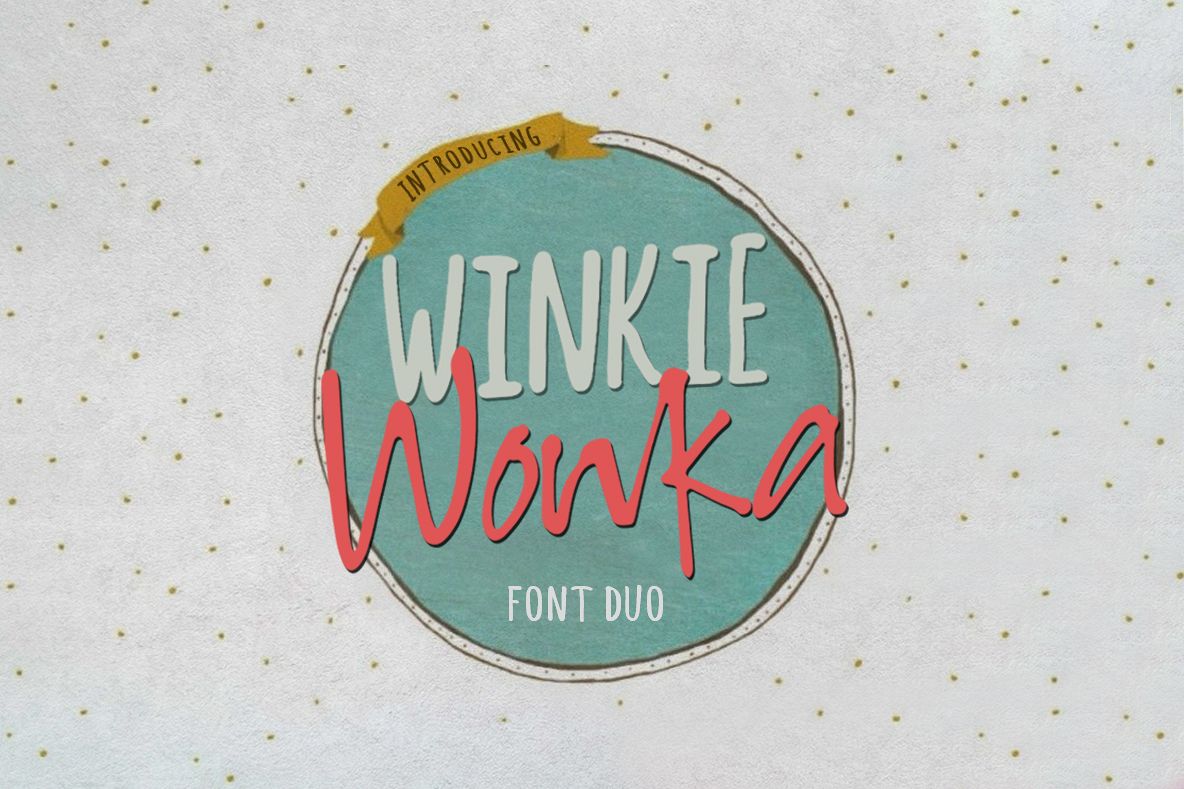
Winkie Wonka Font Duo
Introducing:
Winkie Wonka handwritten font duo with a personal charm. With quick dry strokes and a signature style, Winkie Wonka is perfect for branding projects, homeware designs, product packaging - or simply as a stylish text overlay to any background image.
1. Winkie Regular • A handwritten font containing upper & lowercase characters, numerals and a large range of punctuation
2. Winkie Italic • A handwritten font containing upper & lowercase characters, numerals and a large range of punctuation
3. Wonka Regular • A handwritten script font containing upper & lowercase characters, numerals and a large range of punctuation
4. Wonka Italic • A handwritten script font containing upper & lowercase characters, numerals and a large range of punctuation
Ligatures • Are also available for several lowercase characters (double-letters which flow more naturally). These are only accessible via software with OpenType capability or a glyphs panel, e.g. Photoshop/Illustrator.